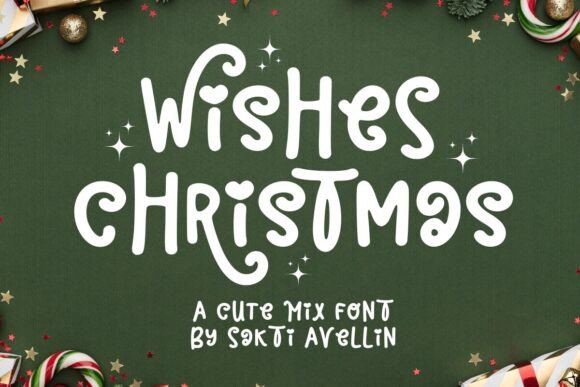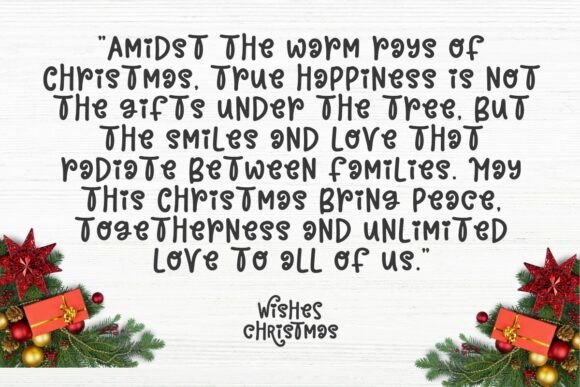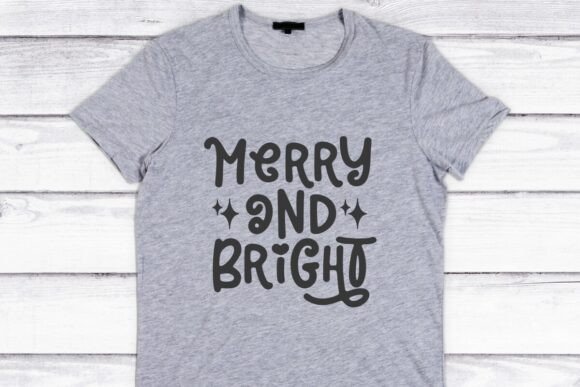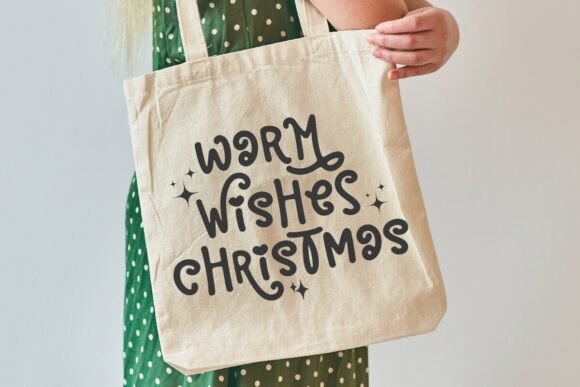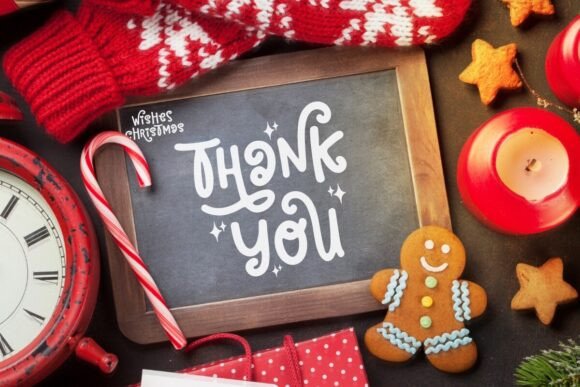
Wishes Christmas Font
Christmas Wishes font, a whimsical typeface designed to carry the festive charm and sweet charisma. With the bonus of alternate characters, this font is a versatile companion for various design needs. It perfectly decks out your wedding and Christmas-themed typography, making your words jingle with joy. As spirited as a quote on a T-shirt or as tender as a message on an invitation card, the Christmas Wishes font sets a delightful tone. Use it to create eye-catching wall decor, endearing children’s book covers, stylish tote bags, or captivating mugs. The possibilities with Christmas Wishes font are as boundless as your creativity!